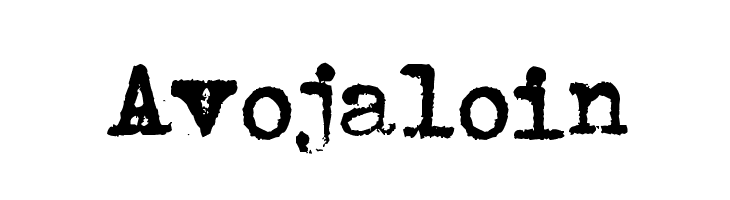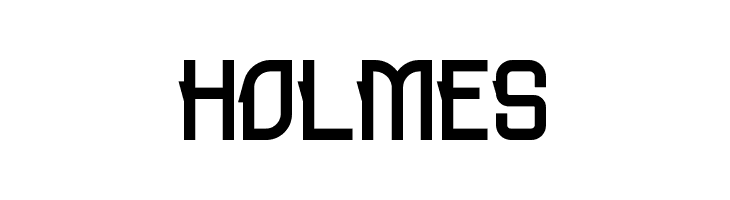
A distressed, grunge-style font with a vintage typewriter aesthetic.
( Fonts by VinType )
A sleek, modern font with clean lines and rounded edges, perfect for versatile design applications.
( bisri.mustova.com )
A playful and whimsical font with rounded, irregular letterforms.
( Philippe Petitpas )
An artistic, hand-drawn font with bold, irregular strokes and geometric elements.
A bold, italic, and condensed font with a playful and dynamic style.
( Måns Grebäck - www.mansgreback.com )
A bold, italic font with a dynamic and modern style.
( weknow - Wino S Kadir - www.creativefabrica.com/designer/weknow/ )
A bold, geometric font with a strong, industrial aesthetic.
( Roger White - web.archive.org/web/20120416090521/www.rogersfonts.org.uk/ )
An elegant serif font with a dynamic italic style.
( Fonts by Kristy Hatswell )
A playful and decorative font with whimsical elements and unique letterforms.